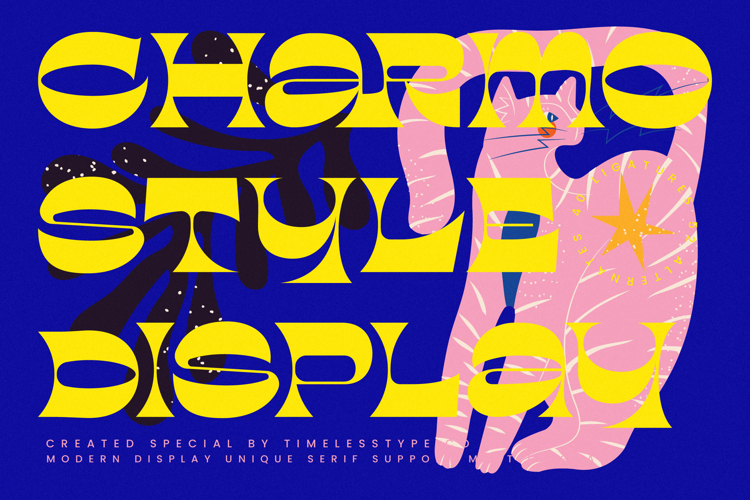
Charmo Style - Modern Display Unique Serif
Charmo Style Display is a modern display serif font that combines bold experimentation with artistic flair. Its chunky proportions, sharp edges, and curved detailing create a font that feels unique, futuristic, and full of personality. With 40 ligatures and 52 alternates, Charmo Style Display offers designers a wide range of creative possibilities, making it perfect for expressive and unconventional typography that demands attention.
This font excels in headline typography, where its eye-catching forms and artistic alternates create a striking impression across posters, banners, and editorial spreads. In branding and logo design, Charmo Style Display communicates creativity and originality, making it ideal for fashion brands, art studios, music labels, and lifestyle products that want to stand out with a bold and avant-garde identity. Its daring aesthetic also makes it an excellent choice for packaging design, especially for creative goods, beverages, cosmetics, and youth-oriented products where typography becomes a central design element.
Charmo Style Display thrives in advertising campaigns, event promotions, and festival posters, where its alternates and ligatures bring individuality and vibrancy. For digital platforms and social media graphics, the font ensures high visibility while infusing layouts with modern energy and a playful, stylish twist.
With multilingual support, Charmo Style Display adapts seamlessly to international projects, ensuring versatility for global creative work.
Ultimately, Charmo Style Display is more than a typeface—it is a bold design statement. Whether used in editorials, branding, packaging, or digital content, it guarantees every project radiates creativity, modern artistry, and unforgettable style.